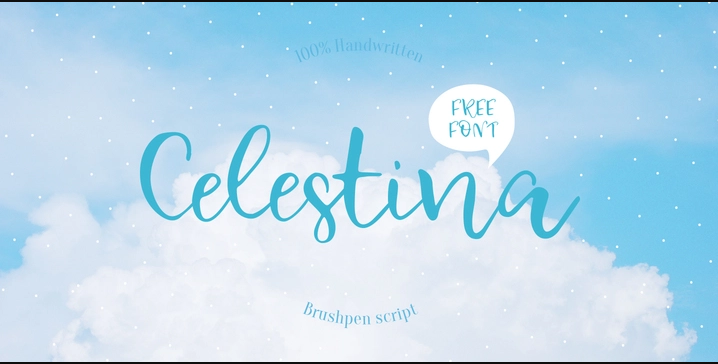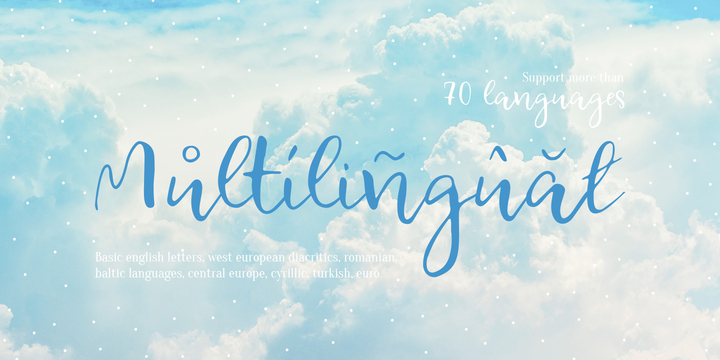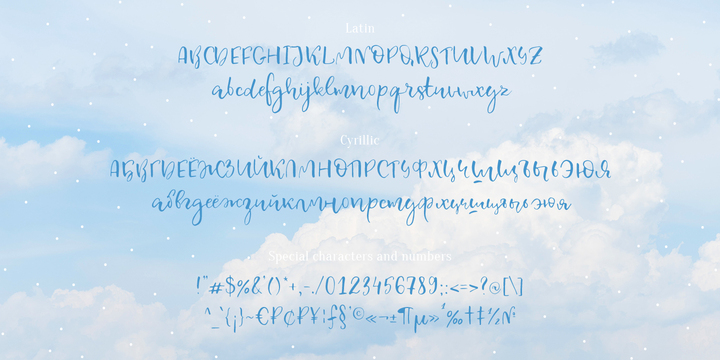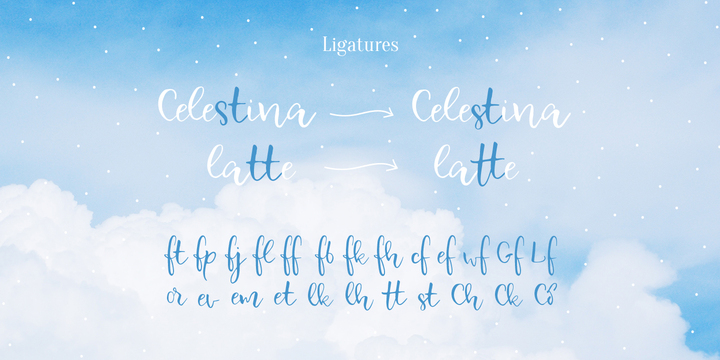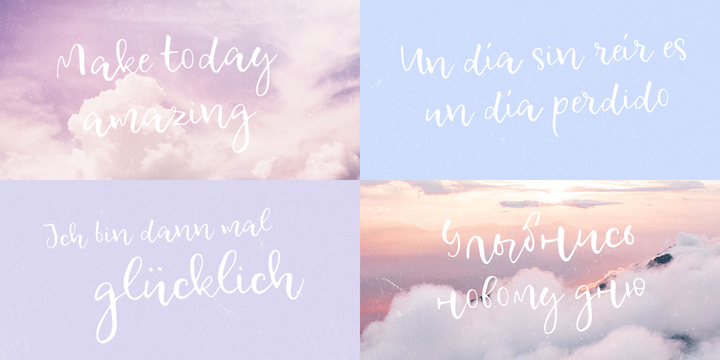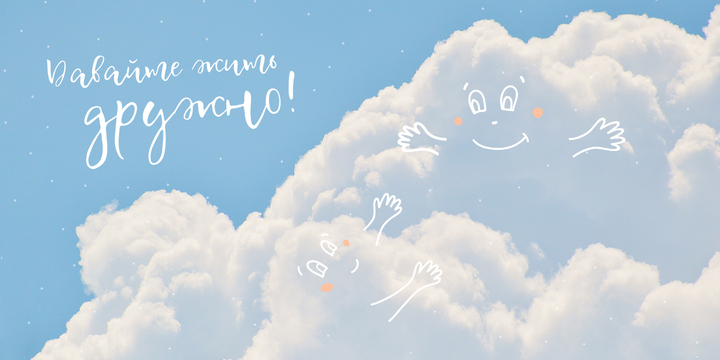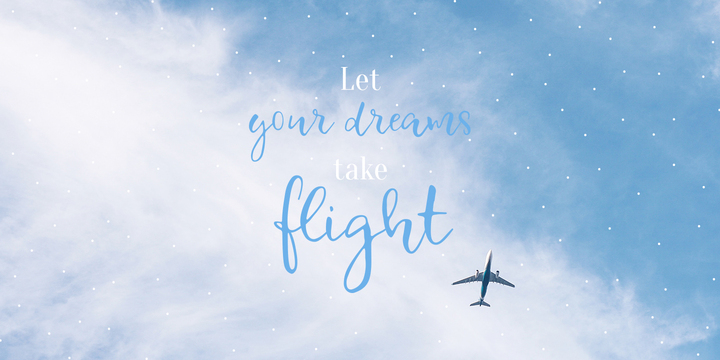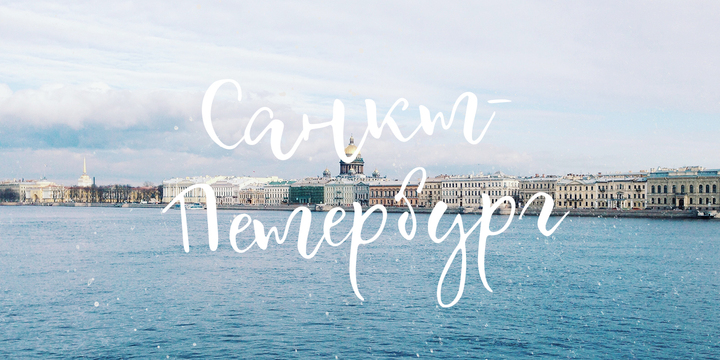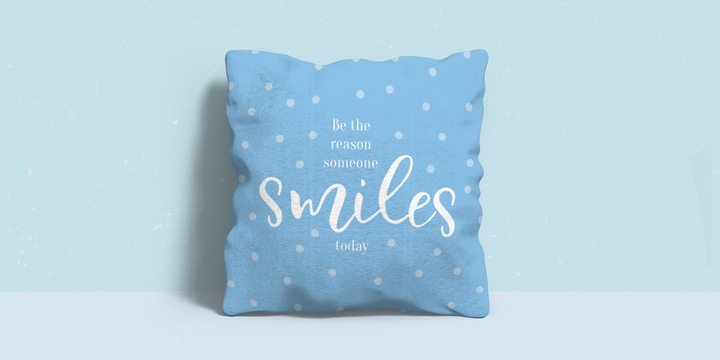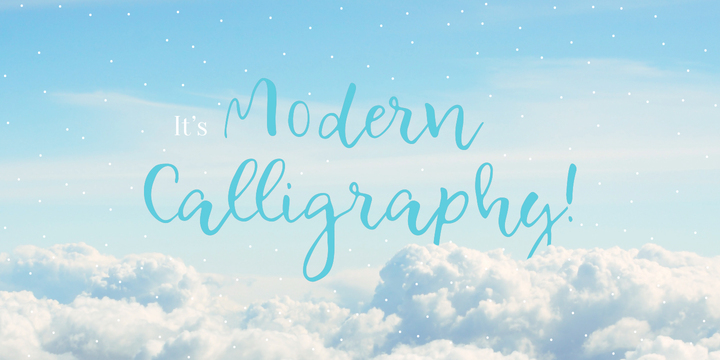
Celestina Font
About this font family
Celestina is the lively spirit, just like drops of ink on a piece of paper or clouds in the sky. The same spirit is maintained by the rounded letters of the script and by the characters’ small whorls.
Celestina has come to life as a result of a peculiar game in which I tried to bring together the letters with different tempers with help of calligraphic instruments. I wanted to create a very light and playful font which would look like a quick inscription on a piece of paper, but would also be easy to read in a text array.